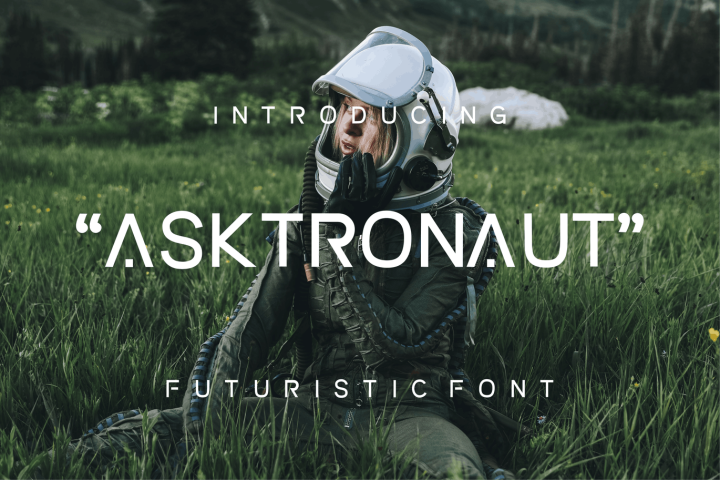
Asktronaut Futuristic Font
Introduce our new collection, ASKTRONAUT – Futuristic Display, Futuristic Style and have very strong characteristics, ASKTRONAUT font with strong and challenging nuances. very suitable for the title, typography, Poster, magazines, brochures, packaging,Websites and much more for your design needs, making your designs more modern and professional.